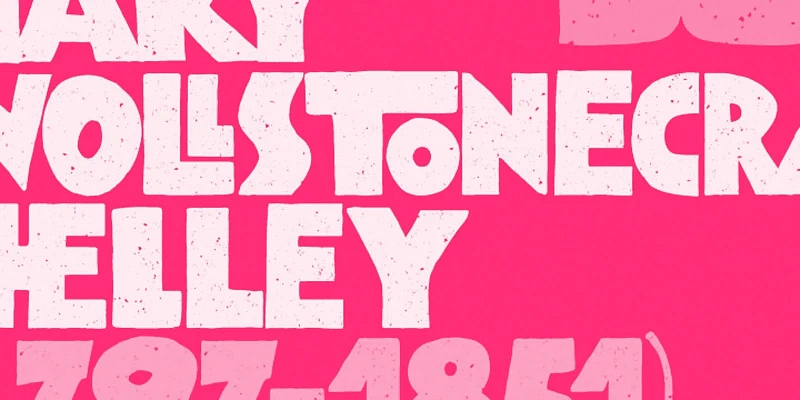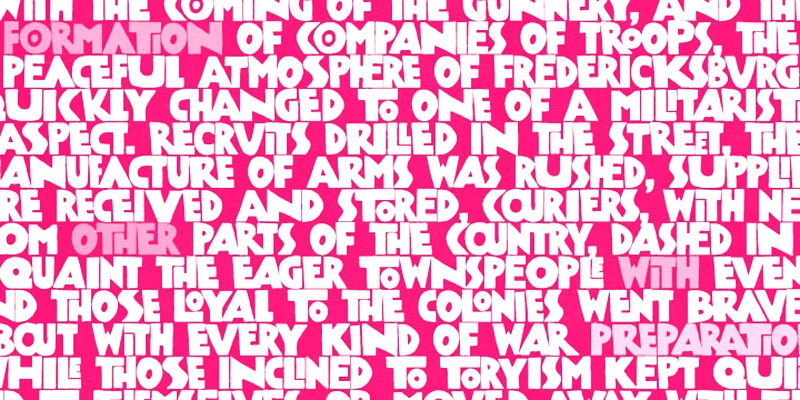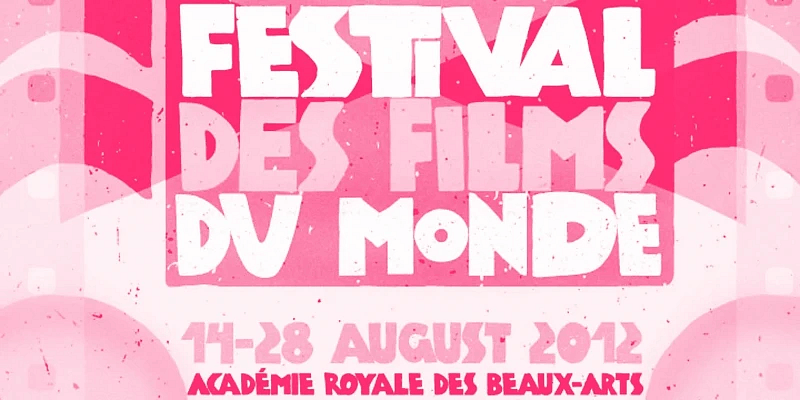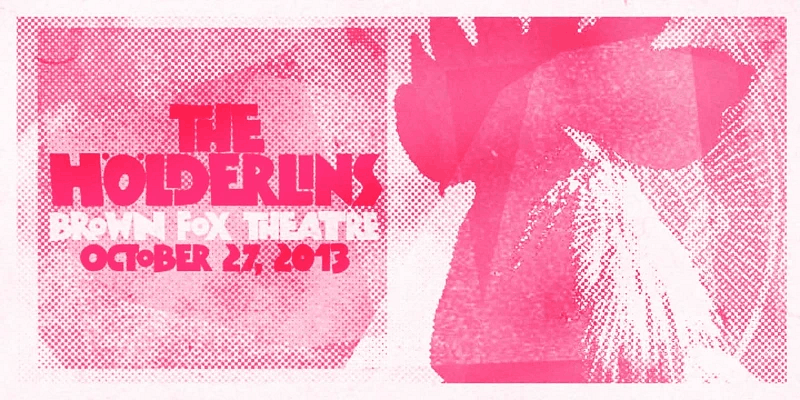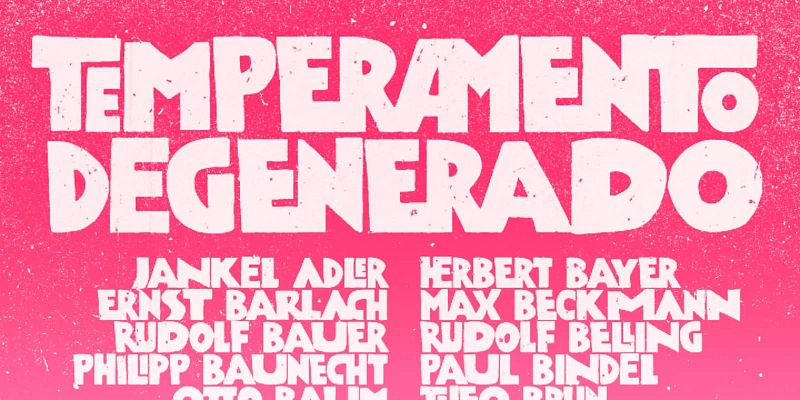
“Kokoschka is a dense and strong display font inspired by the lettering on the poster of a short Expressionist play by Austrian painter, printmaker, and writer Oskar Kokoschka from 1909. Suppose the typeface itself is already profoundly vigorous. Use the ligatures and alternates for a more realistic, hand-lettered feel. The family includes a nice textured version, an oblique, and a very handy assortment of extras—ideal for book covers, film titles, concert posters, and food packaging, too!